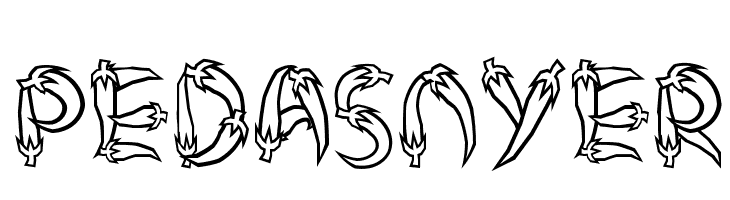
A bold, edgy font with sharp, flame-like details for a fierce look.
A light serif font with elegant strokes and a classic appearance.
A bold, three-dimensional font with a playful and modern aesthetic.
A bold, stencil-style font with angular, blocky characters and decorative cutouts.
A dynamic, thin italic font with a modern calligraphic style.
A decorative script font with elegant loops and flourishes.
A cursive, handwritten font with elegant, flowing strokes.
A geometric, modern font with a structured, monospaced appearance and slightly rounded edges.
A bold, 3D font with a vintage, textured design and shadow effect.
A whimsical, hand-drawn font with tall, narrow characters and a playful style.